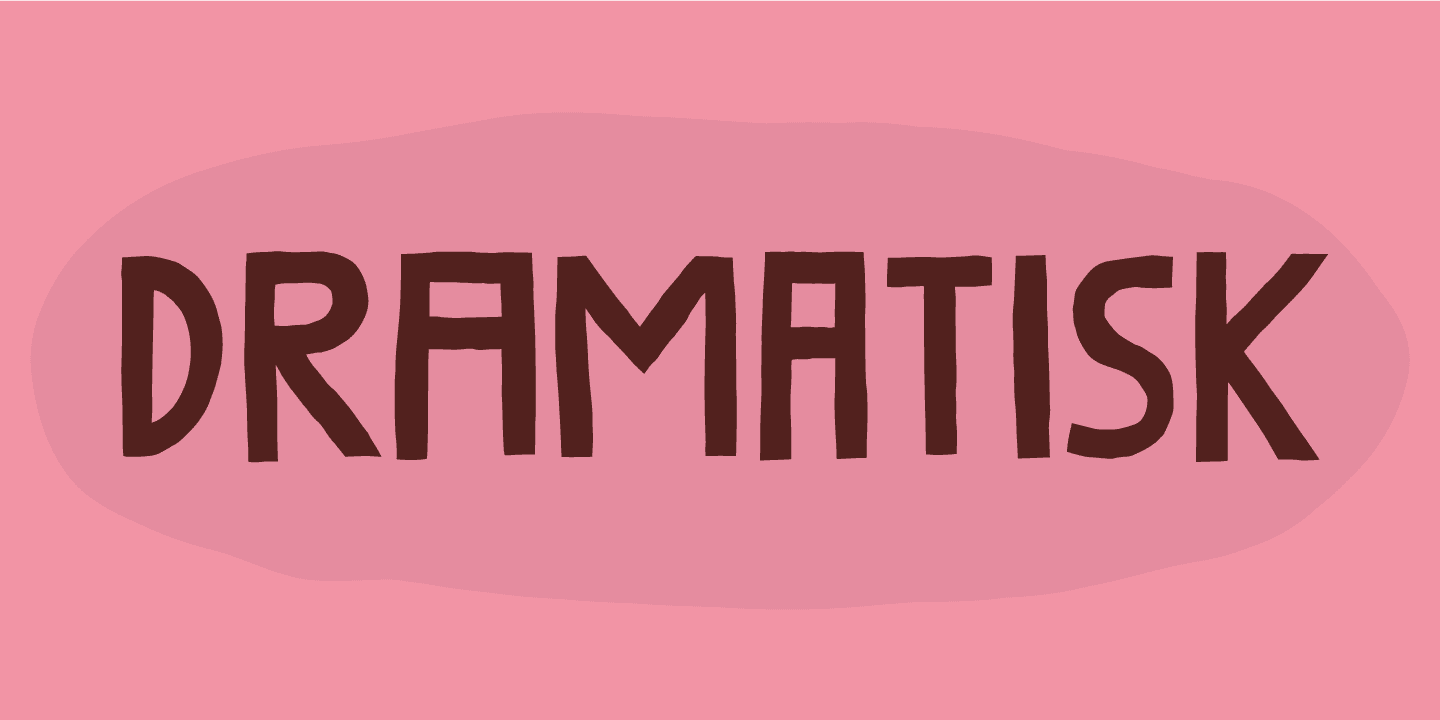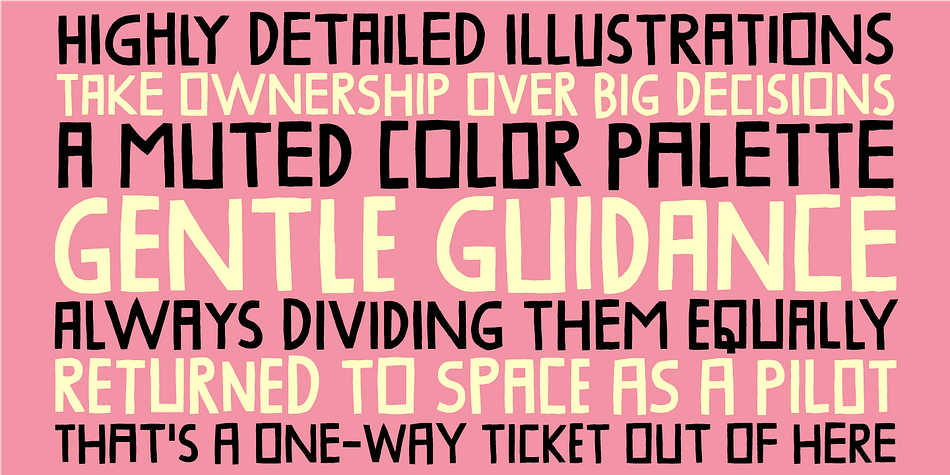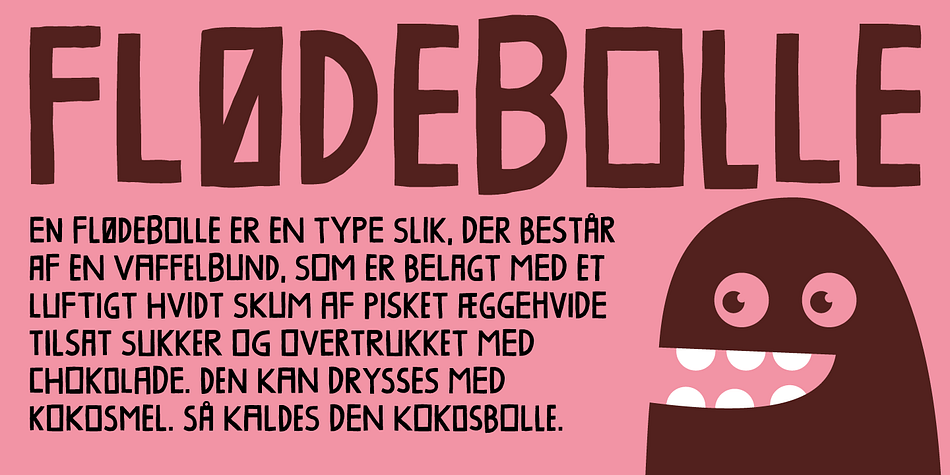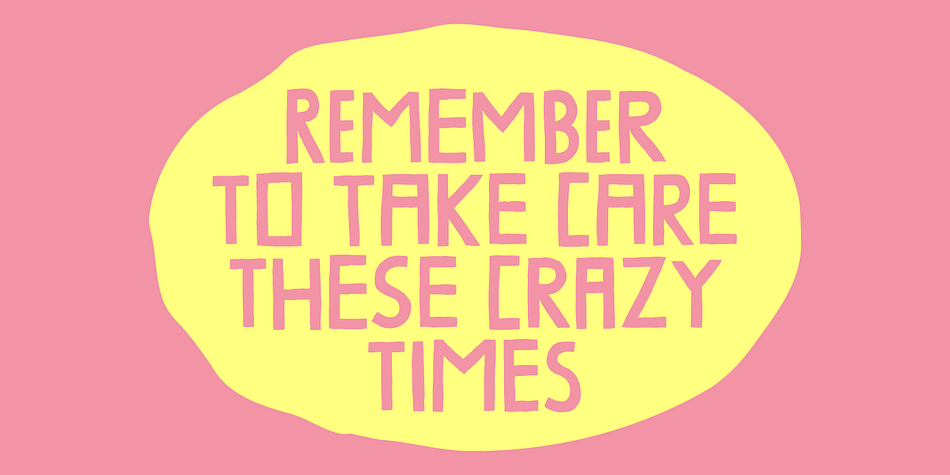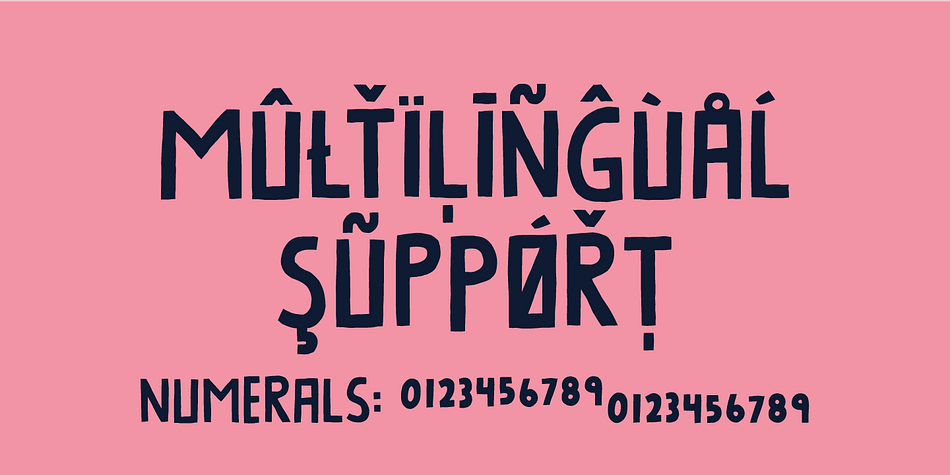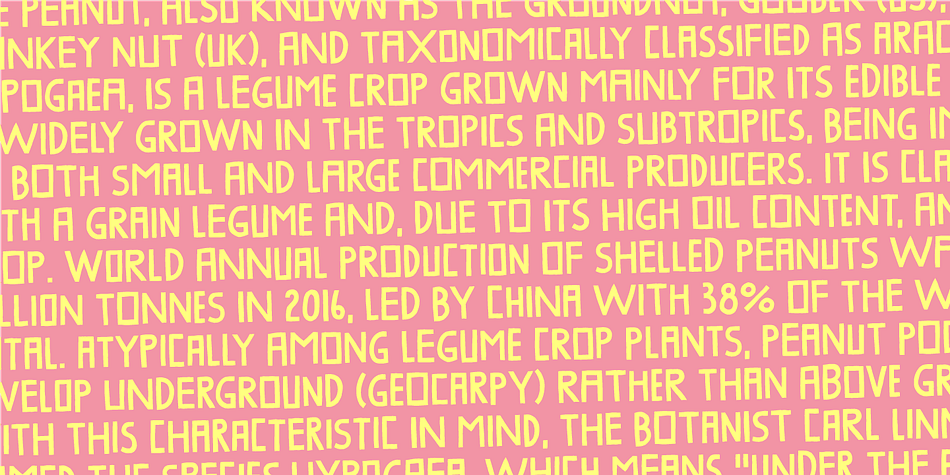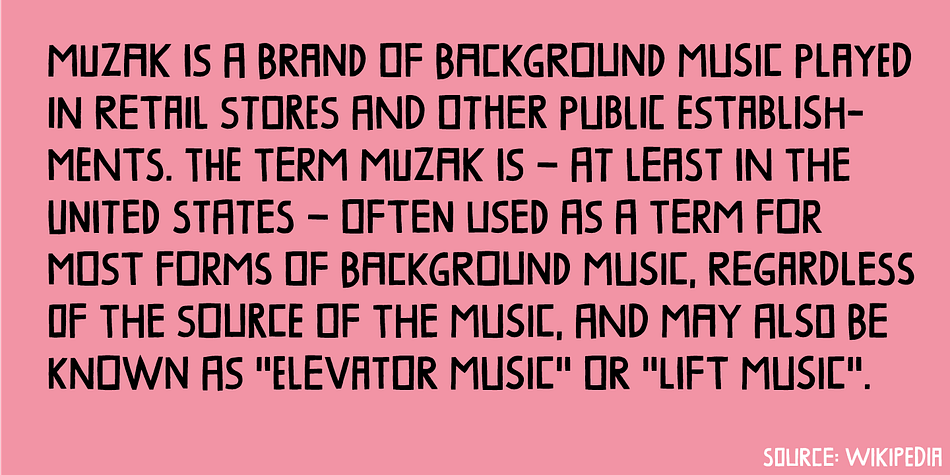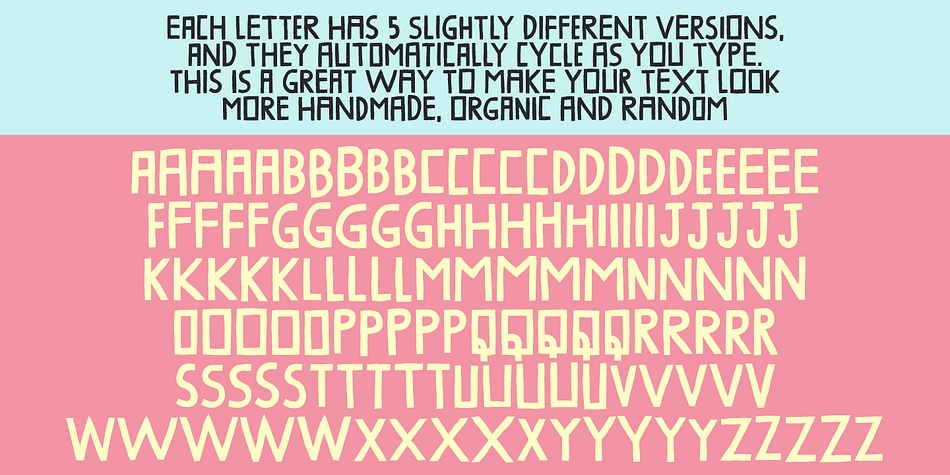
Dramatisk
Designed by Jakob Fischer, Dramatisk is a display, hand display and hand drawn font family. This typeface has two styles and was published by Bogstav.
Dramatisk is my attempt on making a square-is sans font, suitable for headlines, shoutouts and even massive amounts of text! Choose between the 5 different versions of each letter, or use the contextual alternates and see how the magic magically and automatically just happens!